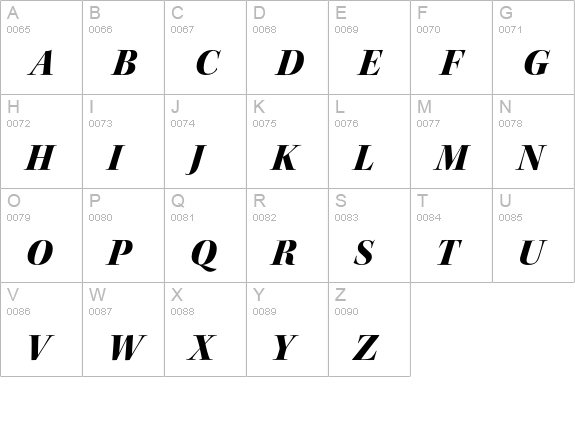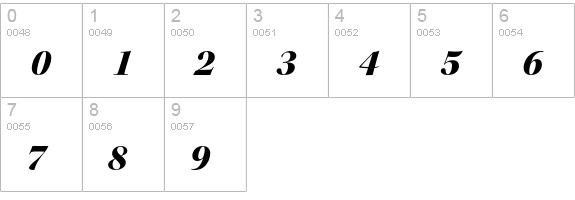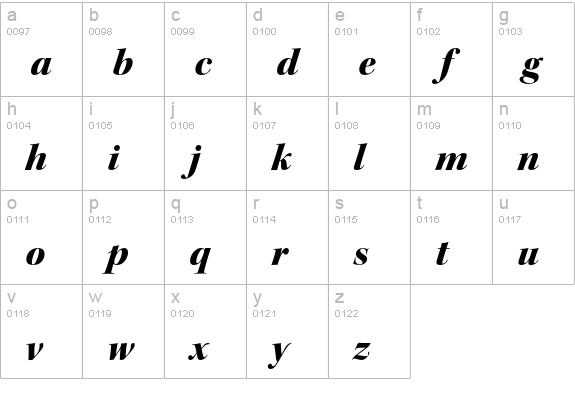
Kepler Std Black Italic Display Font Details
Kepler Std Black Italic Display is a maximum-weight, dramatic, italic variant in the Kepler typeface family \xE2\x80\x94 well suited to maximum-impact headlines, posters, and packaging.
The Kepler Std Black Italic Display font is a stunning and bold typeface that exudes elegance and sophistication. With its sleek and slanted letterforms, this font is perfect for adding a touch of modernity and flair to any design project. The Kepler Std Black Italic Display font stands out with its strong and confident presence, making it an excellent choice for headlines, titles, and branding materials. Its italicized style adds a touch of dynamism and movement, creating a visually striking impact. This font is not only visually appealing, but it also offers great versatility. It works seamlessly in both print and digital mediums, making it suitable for a wide range of design applications such as posters, advertisements, logos, websites, and more. One of the best things about the Kepler Std Black Italic Display font is that it is available for free download at FontsMarket.com. This means that designers and creatives can easily access this fantastic font without any cost. It's a great opportunity to enhance your design projects with a premium-quality typeface without breaking the bank. Don't miss out on the chance to elevate your designs with the Kepler Std Black Italic Display font. Download it for free at FontsMarket.com and unleash your creativity today!